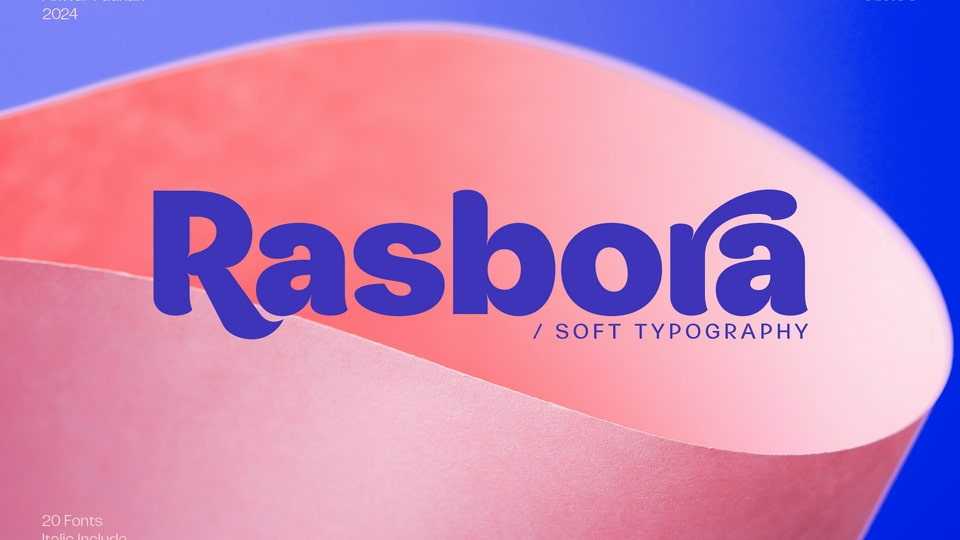
Download JHC Rasbora font, a beautifully crafted typeface that exudes a soft and relaxed character. This font features a unique feeling curve in its letterforms.